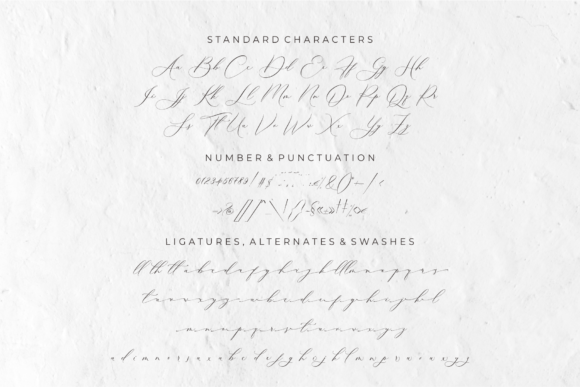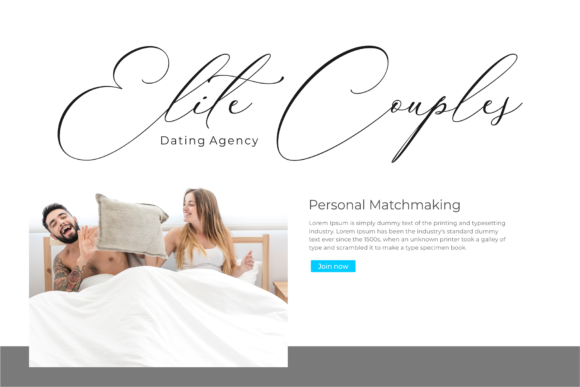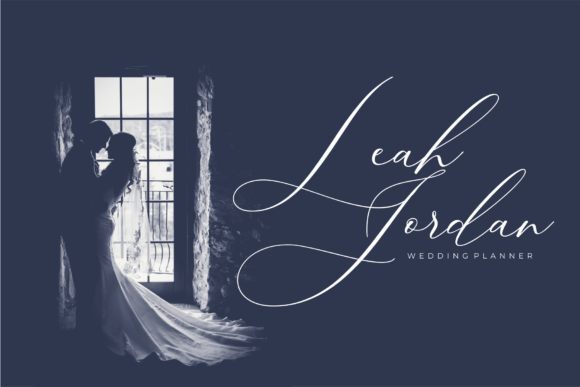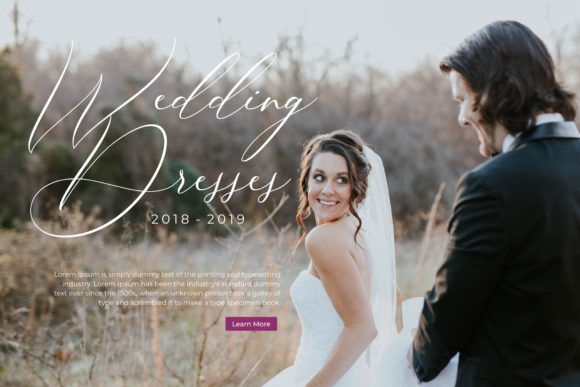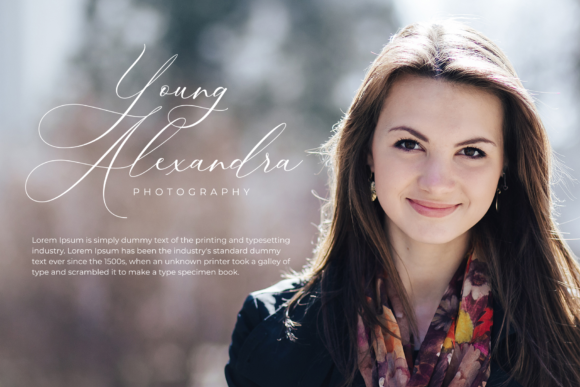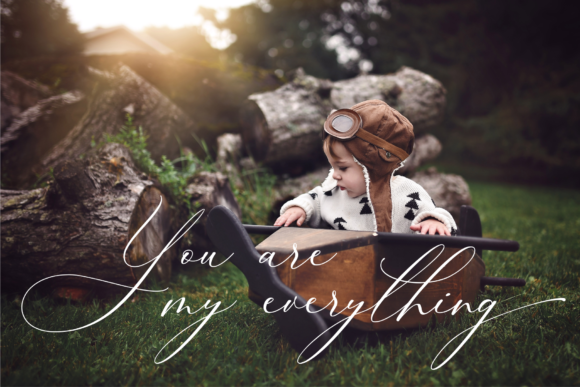
The Timeless Charm of Boheme Floral Font
As a designer, you’ve likely had moments where you’re brainstorming ideas for a new project and the perfect font just pops into your head. For me, it’s often when sipping coffee at a quaint café, surrounded by vintage decor and the soft hum of creative energy. It’s in these moments that the Boheme Floral Font comes to mind – a classic romantic calligraphy with lovely movements that adds a touch of whimsy to any design.
The Boheme Floral Font is perfect for a variety of applications, from logos and printed quotes to badges, insignia, and wedding invitations. Its versatility and timeless charm make it a valuable asset for designers looking to add a touch of elegance to their work. With the Boheme Floral Font, you can create beautiful and eye-catching designs that capture the essence of any occasion.
Key Features of Boheme Floral Font
- Font Family: Boheme Floral, a unique and elegant script font designed to evoke a sense of romance and sophistication.
- Character Set: Includes a comprehensive set of characters, including uppercase and lowercase letters, numerals, punctuation marks, and special characters.
- Unique Characteristics: Features a delicate, hand-drawn design with intricate floral elements and subtle texture, giving it a distinctive and eye-catching appearance.
Boheme Floral Font Review
I recently had the chance to work with the Boheme Floral font, and I have to say it’s a unique addition to any design project. ✨ One of the things that stands out is its whimsical and romantic feel, which makes it perfect for projects that require a touch of elegance and sophistication. ✨ The font’s floral elements add a beautiful, organic touch that can’t be replicated by any other font. ✨ The ligatures and swashes are also well-executed, making the text look more like handwritten calligraphy.
- ⚠️ Limited character set: The font only includes a limited number of characters, making it less versatile for projects that require a wide range of characters.
- ⚠️ Not ideal for body text: Due to its ornate design, the font is best suited for headlines and titles, as it can be difficult to read at smaller font sizes.
- ⚠️ May not be accessible for all users: The font’s decorative elements can make it challenging for users with visual impairments to read.
Overall, I think the Boheme Floral font is a beautiful addition to any design project. While it has some limitations, its unique charm and romantic feel make it perfect for projects that require a touch of elegance and sophistication. I would recommend it for designers who are looking for a font that can add a touch of whimsy and romance to their work.
Boheme Floral Font is perfect for:
– Floral-themed designs and branding
– Vintage-inspired packaging and labels
– Creative typography and quotes
Alternatives to Boheme Floral Font
Compared to Boheme Floral Font, Great Vibes has a more fluid and organic feel, making it suitable for designs that require a softer, more feminine touch. While Boheme Floral Font has a more vintage feel, Great Vibes is more modern and sleek.
Are there any specific font pairing recommendations for the Boheme Floral Font?
Yes, we recommend pairing the Boheme Floral Font with clean, sans-serif fonts like Open Sans or Lato to create a harmonious balance between elegance and legibility. You can also experiment with other script fonts like Pacifico or Great Vibes for a unique and eye-catching design.